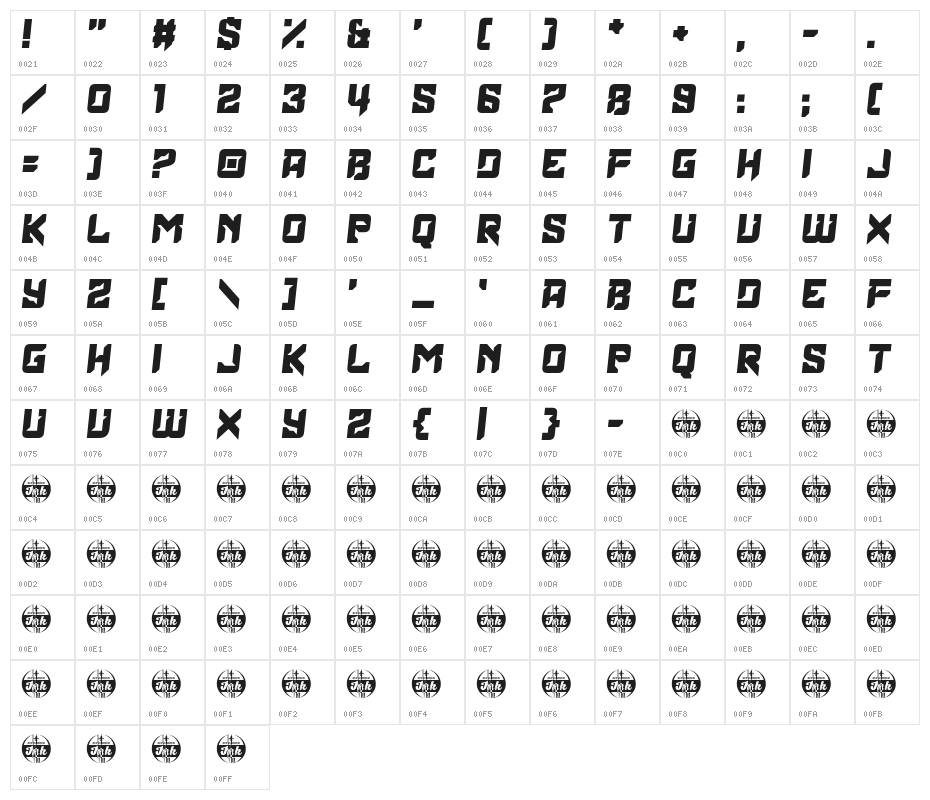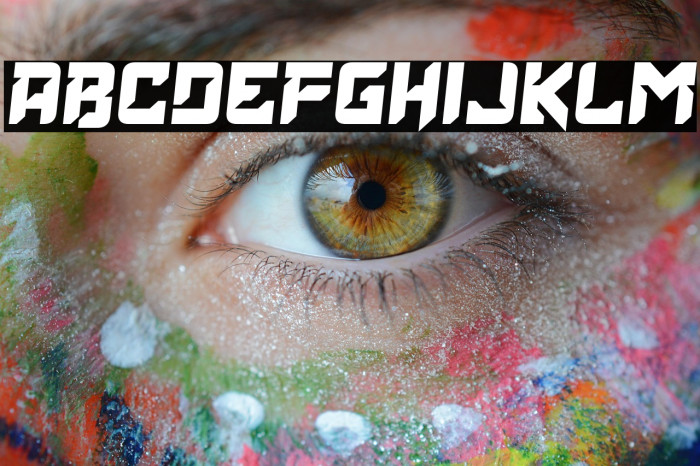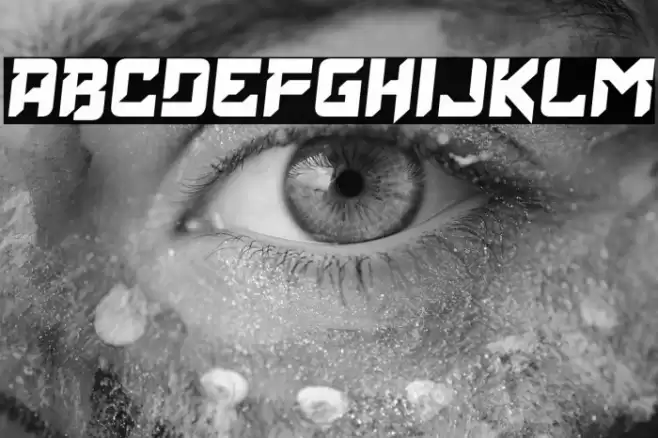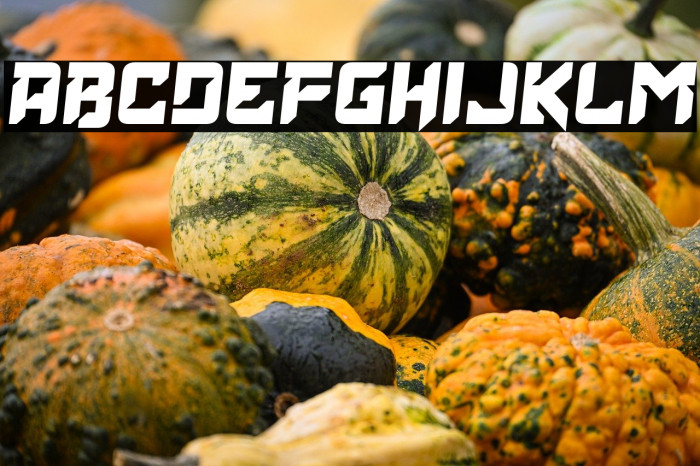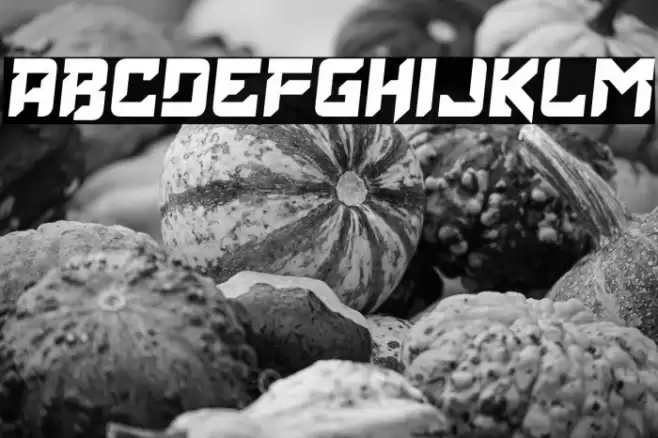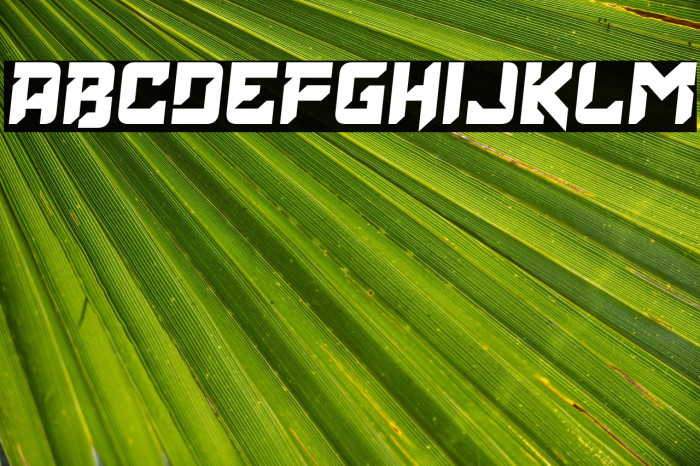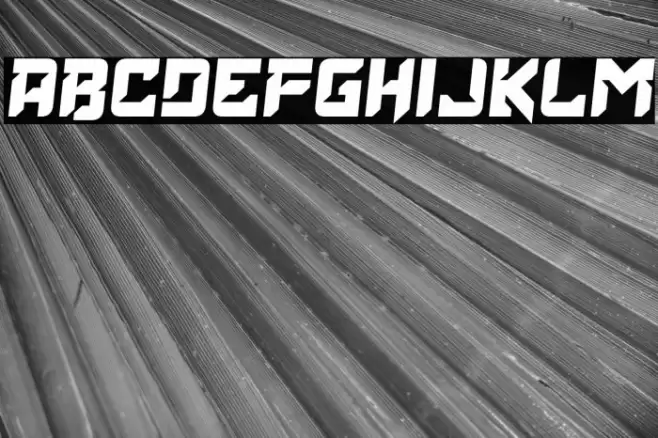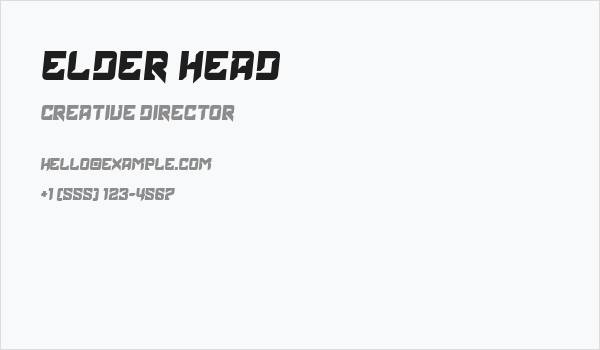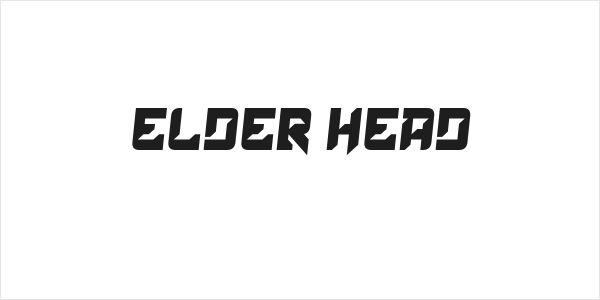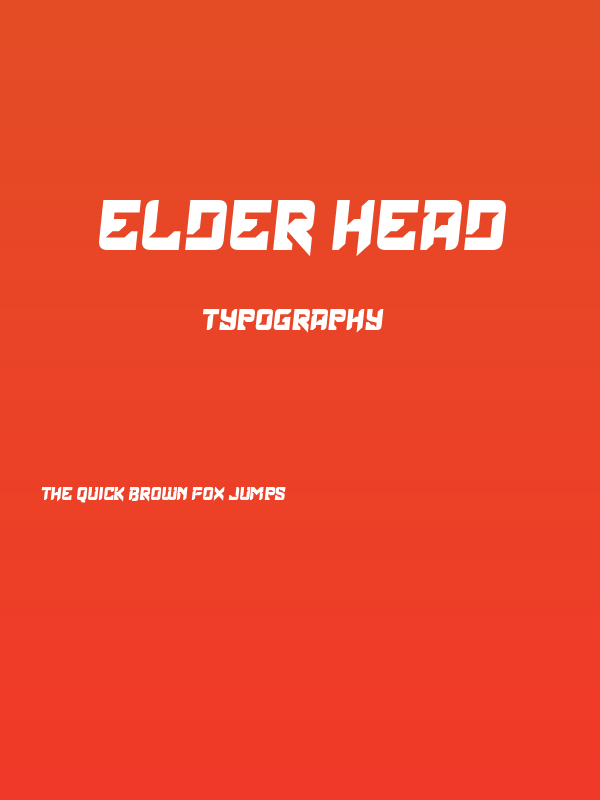
Elder Head Font
Elder Head Description
This font features a bold, angular design with sharp edges and a futuristic aesthetic. The characters are heavily stylized, giving them a dynamic and aggressive appearance. The uppercase and lowercase letters maintain a consistent style, with each character exhibiting unique cuts and angles that create a sense of movement. The numbers and special characters follow the same design principles, ensuring uniformity across all glyphs. This font's distinct style makes it stand out, ideal for projects that require a strong visual impact.
| Overall Style | Futuristic, Aggressive |
| Proposed Projects | Ideal for video game titles, sci-fi movie posters, sports branding, and edgy graphic design projects. |